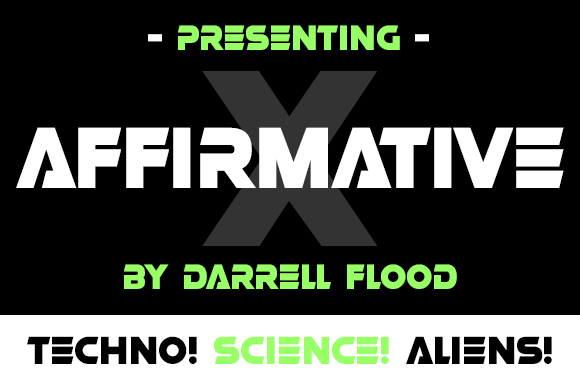
The Power of Affirmative Font: Unleashing Bold Designs
I’ll never forget the time I was working on a project for a sports brand, tasked with creating a logo that exuded speed, power, and energy. As I scrolled through font after font, nothing seemed to capture the essence I was looking for – until I stumbled upon Affirmative. This cool, bold, and thick lettered display font instantly caught my attention, and I knew I had found the perfect fit. In this article, I’ll share my experience with Affirmative, its features, and how to make the most of it in your designs.
An Honest Review of Affirmative Font
• ✨ Bold and Impactful: Affirmative’s thick letters make it perfect for headlines, titles, and statements that demand attention.
• ✅ Versatile: This font can be used for various design projects, from sports and fitness to technology and entertainment.
• 💥 Expressive: Affirmative’s boldness allows it to convey confidence, energy, and a sense of urgency.
While Affirmative is an excellent font, there are a few things to keep in mind:
• 🤔 Legibility at Small Sizes: Due to its bold nature, Affirmative may not be the best choice for body text or small font sizes, as it can become overwhelming.
• ⚠️ Limited Use in Formal Contexts: The font’s bold and edgy personality might not be suitable for formal or professional documents, such as academic papers or business reports.
A Practical Guide to Using Affirmative Font
The Designer Inspiration Behind Affirmative
The story behind Affirmative’s creation is one of passion and dedication. The font was designed by a team of typographers who aimed to create a bold, yet elegant font that would capture the essence of speed, power, and energy. Inspired by the world of sports and fitness, Affirmative was crafted to be a statement font that would make a lasting impression.
What is Affirmative font best used for? Affirmative font is best used for designs related to speed, power, or sports, such as logos, titles, and headings.
Can I use Affirmative for body text? While Affirmative can be used for body text, it’s not recommended due to its bold nature, which may be overwhelming at smaller font sizes.